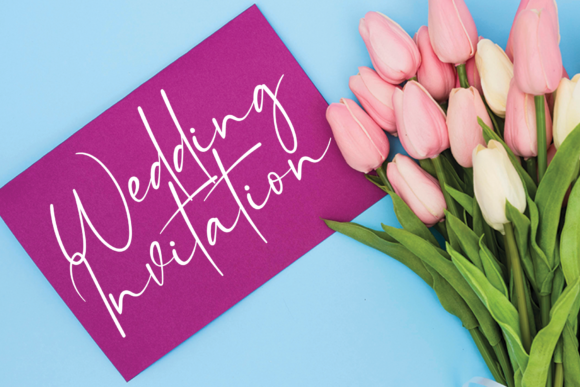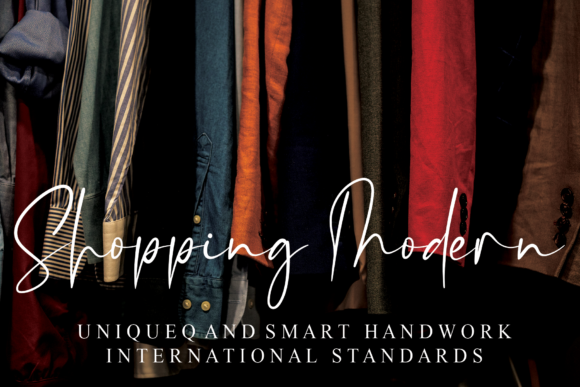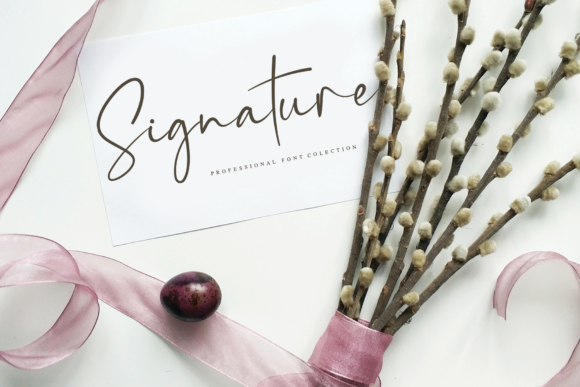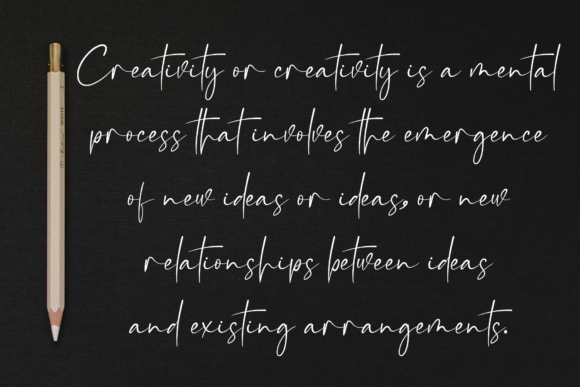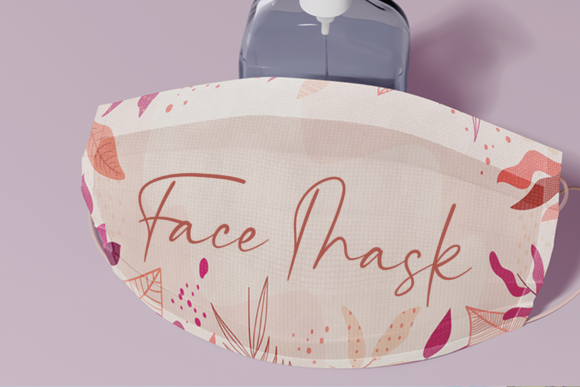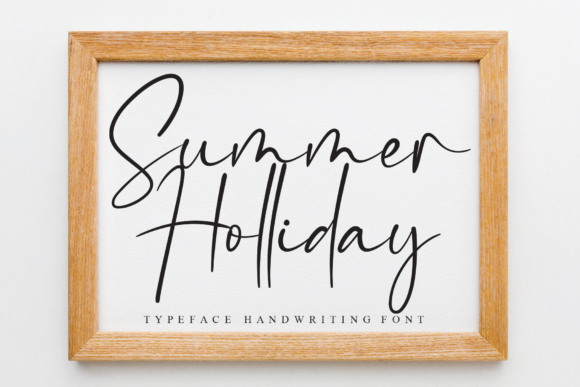
Introduction to Mellinda Creative Font
Do you remember the moment when a single font choice made all the difference in your design? For many creatives, it’s that ‘aha’ moment when everything falls into place. I still recall the excitement I felt when I stumbled upon the Mellinda Creative Font. Its delicate and elegant handwritten style instantly elevated my project, making it stand out in a crowd.
As a valuable design resource, the Mellinda Creative Font is perfect for creating eye-catching logos, branding, and quotes. With its unique and beautiful touch, every letter comes alive, giving your creative project that extra oomph. Whether you’re working on a high-quality design or need a free download for a quick project, this font is sure to impress. Its transparent background makes it easy to use, and its high-quality design ensures that your work will look professional and polished.
For designers, the Mellinda Creative Font is a game-changer. It’s a versatile and creative tool that can help take your designs to the next level. With its beautiful and elegant style, you can create stunning visuals that capture attention and leave a lasting impression. So, what are you waiting for? Get creative with the Mellinda Creative Font and watch your designs come alive!
Key Features of Mellinda Creative Font
- Unique Hand-Drawn Design: Mellinda Creative Font boasts a distinctive hand-drawn style, making it perfect for creative projects that require a personal touch.
- High-Quality Typography: With its high-quality design, Mellinda Creative Font ensures crisp and clear text, ideal for use in various design resources.
- Transparent Background Option: This font allows for a transparent background, providing designers with the flexibility to use it in various creative project settings.
- High Resolution: With a high resolution of 300 DPI, Mellinda Creative Font is suitable for use in print and digital design projects, including business cards, posters, and more.
- Perfect for Creative Projects: Designed specifically for creative projects, Mellinda Creative Font is an excellent choice for designers looking to add a touch of personality to their work.
Honest Review: Mellinda Creative Font
- ✨ High quality design that looks professional
- ✨ Versatile font that’s perfect for creative projects
However, there are a few limitations to consider. The font is not as extensive as some other options, which may be a drawback for designers who need a wide range of styles.
- ⚠️ Limited character set
- ⚠️ Not as extensive as some other fonts
Overall, I’m impressed with the Mellinda Creative Font and would recommend it to designers looking for a high-quality, free font to add to their design resource library.
For optimal results, use Mellinda Creative Font in conjunction with high-quality images and adjust the font size and style to suit your design needs.
Great Vibes is a high-quality, free download font perfect for creative projects requiring a modern and elegant touch. It features a transparent background, making it ideal for overlaying on images or videos. Great Vibes is a great alternative to Mellinda Creative Font for designers looking for a similar feel with a more subtle aesthetic.
Pacifico is a beautiful, high-quality font suitable for creative projects requiring a touch of sophistication. Its transparent background and elegant design make it perfect for use in logos, branding, and other design elements. While Pacifico is more cursive than Mellinda Creative Font, it shares a similar level of refinement and can be used in similar contexts.
Yes, the Mellinda Creative Font is designed to be used with a transparent background, making it ideal for creating stunning visual effects and designs. Simply apply a transparent layer to the font, and you’re good to go!